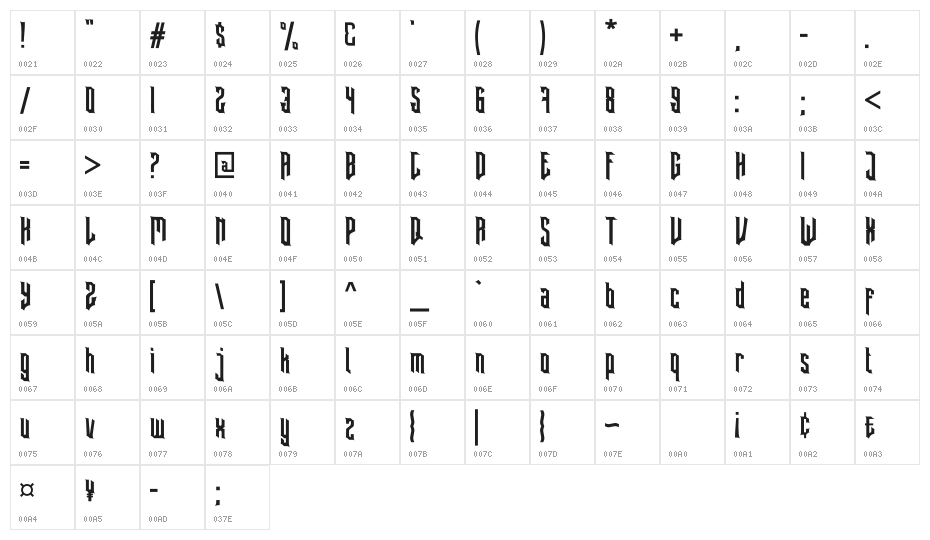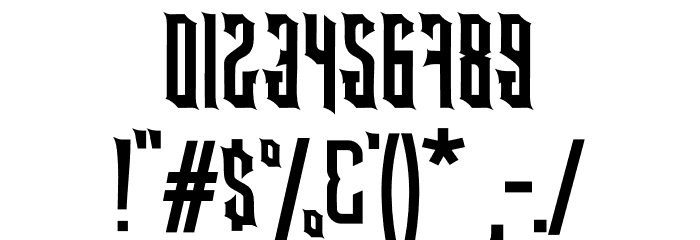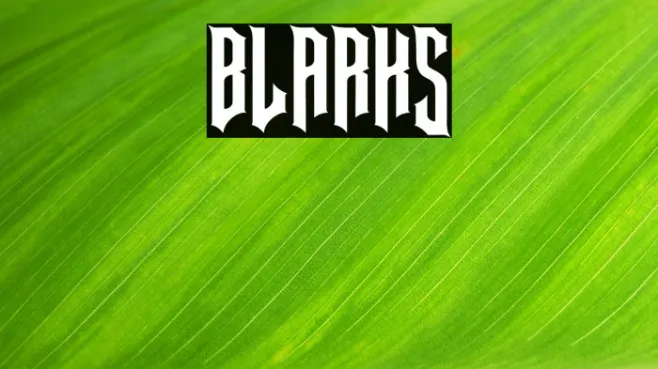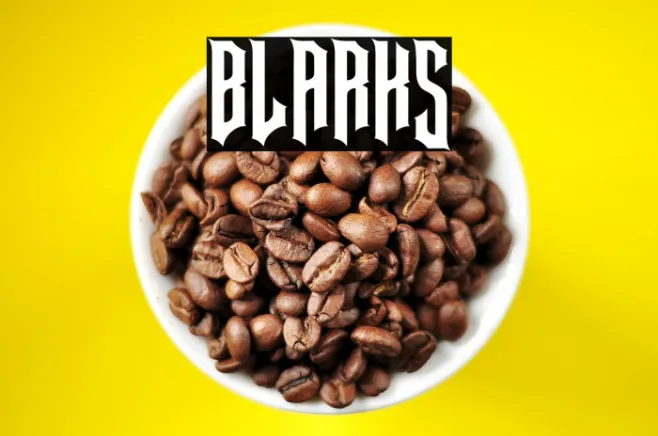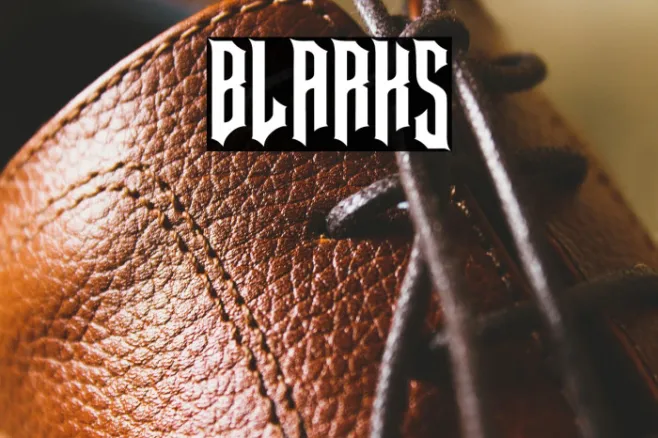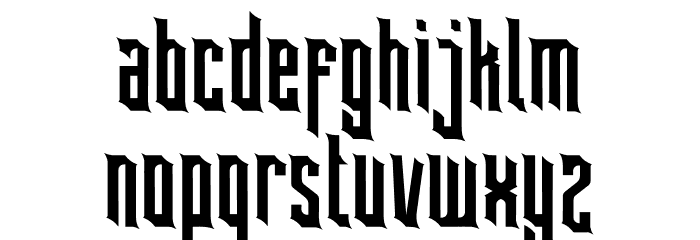
BLARKS Font
BLARKS Description
This font features a bold and striking design with sharp, angular edges and a distinct Gothic influence. The characters are tall and narrow, giving them a dramatic and imposing presence. The uppercase and lowercase letters maintain a consistent style, with the uppercase being more pronounced. The numbers and special characters follow the same angular theme, ensuring a cohesive look across all elements. This font's unique style makes it ideal for projects that require a strong visual impact.
BLARKS UPPERCASE
BLARKS LOWERCASE
BLARKS OTHER CHARS
| Proposed Projects | Ideal for posters, album covers, branding, and any project needing a bold, dramatic typeface. |